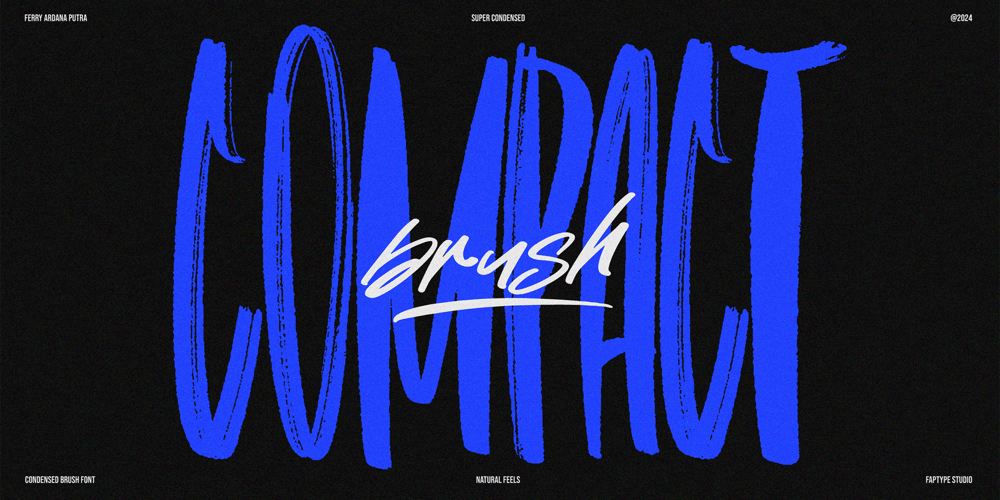
Condensed Brush Font Family was designed by Ferry Ardana Putra and published by Ferry Ardana Putra. Condensed Brush contains 1 styles and family package options. Introducing Compact Brush, a sophisticated and powerful condensed brush font designed for modern creatives seeking elegance and impact. This font brings together the bold expressiveness of a brush style with a compact, space-saving structure, making it perfect for projects where every inch counts without sacrificing visual appeal.Compact Brush delivers striking, handcrafted strokes with a streamlined, condensed design, making it ideal for headlines, posters, branding, packaging, and more. Its versatility allows it to shine in various design environments, offering a professional yet artistic feel that stands out in both digital and print media.With its balanced combination of sharp edges and smooth brush textures, Compact Brush evokes a sense of dynamic energy while maintaining legibility even in tight spaces. It’s perfect for designers who want to create bold statements without overwhelming their layouts. Whether you’re designing for a creative endeavor, Compact Brush ensures your message is conveyed with clarity and style.Add a touch of artistic flair to your designs with Compact Brush, a font that effortlessly blends creativity with precision. Let your projects speak louder and clearer with the unique character of this condensed brush font.Compact Brush: A full set of upper & lowercase characters Numbers & punctuation Multilingual language support PUA Encoded Characters +254 Glyph +23 Brush Swashes